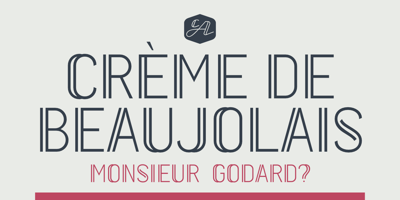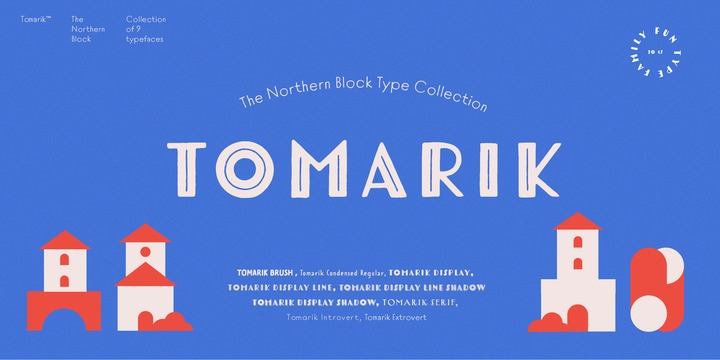
Tomarik Font
Tomarik Font is perfect for contemporary corporate branding, modern tech company logos, professional service websites, architectural firm presentations, financial institution materials, healthcare facility signage, educational institution graphics, government agency documents, consulting firm reports, and sophisticated business communications. This versatile typeface excels in applications where clean professionalism, modern reliability, and approachable authority are fundamental brand requirements.
What makes Tomarik Font exciting is its masterful balance between geometric precision and humanistic warmth that creates exceptional versatility across diverse professional applications. The font features carefully optimized letterforms with subtle personality details that prevent sterility while maintaining the clean, trustworthy appearance essential for professional credibility. Its systematic design approach ensures consistent brand communication while providing the flexibility needed for complex information hierarchies and multilingual documentation.
The Tomarik Font family typically includes comprehensive weight options from Light to Bold, with corresponding italic variations that provide extensive design flexibility for professional applications. Many versions feature extended character sets with professional symbols, mathematical operators, and multilingual support that accommodate international business communications. Some collections include condensed variations, tabular figures for financial reporting, and small caps for formal document formatting standards.